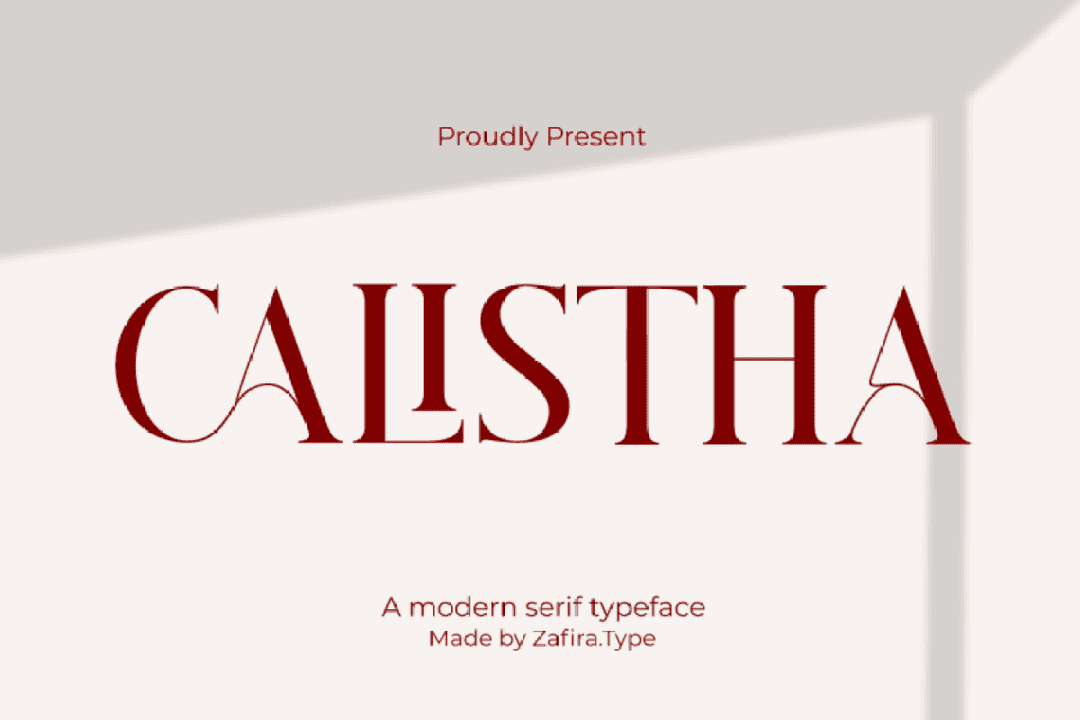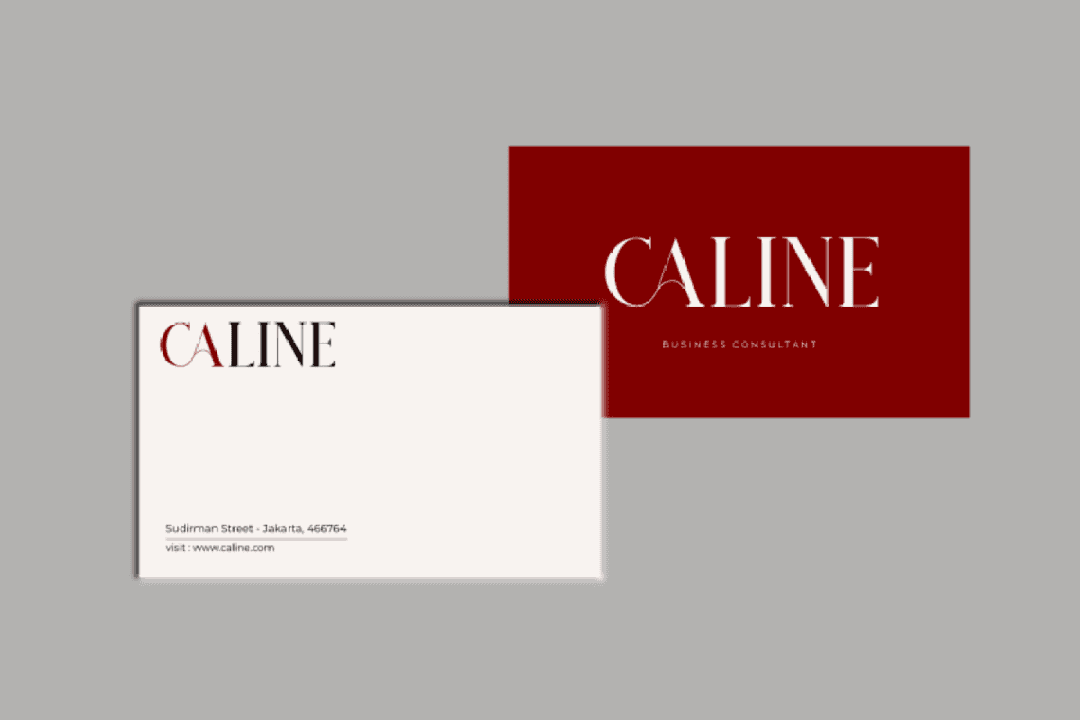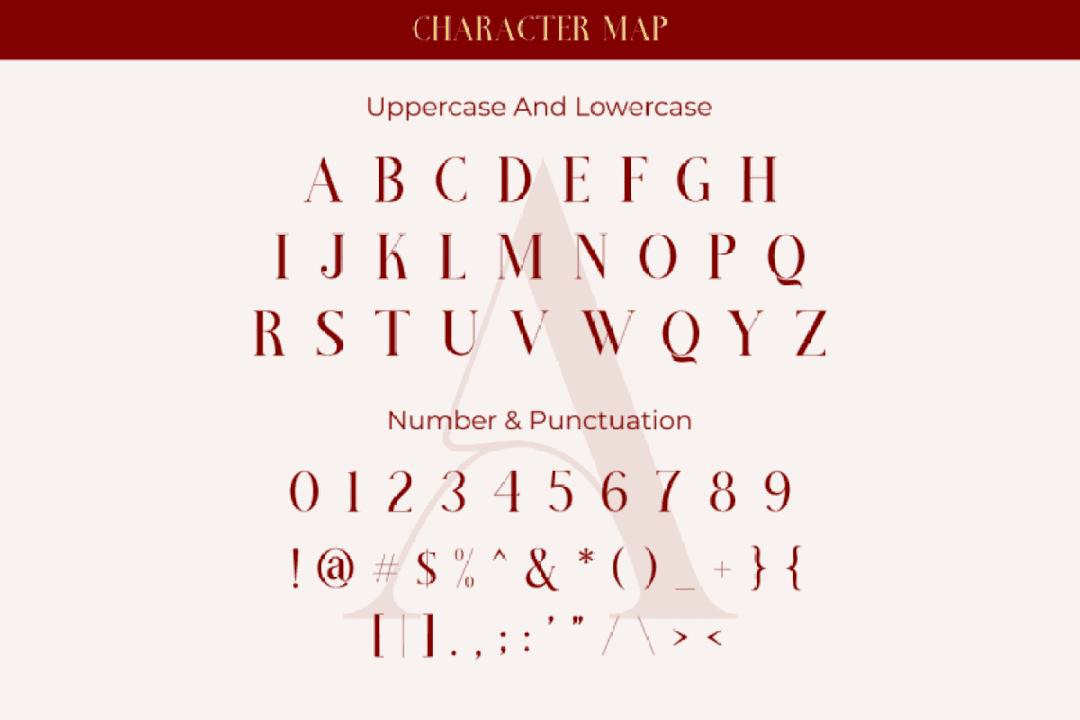
Calistha is an elegant, beautiful, soft serif font designed with romantic undertones that is ideal for marriage invitations, poster designs, logotypes and product branding. PUA encoded font allows users access to its remarkable symbols and ligatures instantly!